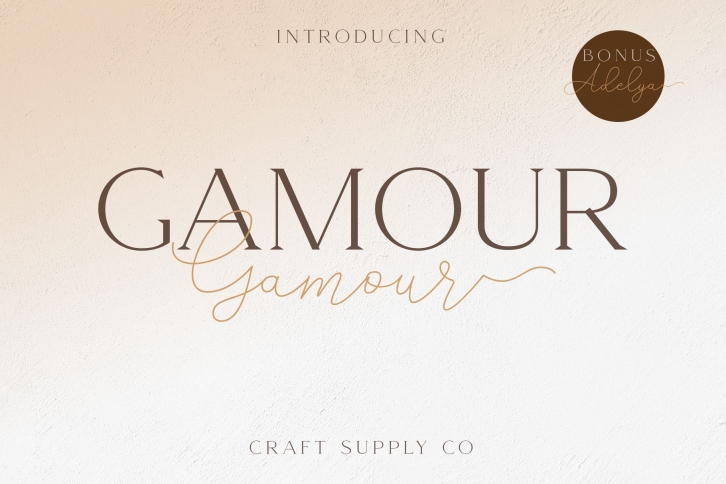
Gamour is a gorgeous font that was realeased on February 19, 2020. The font can be used in many style contexts and design environments. Perfect for invitations, magazines, websites, logos, and more! It was designed by Craft Supply Co. and the file size is 14.33 MB. Thanks for checking out this font!